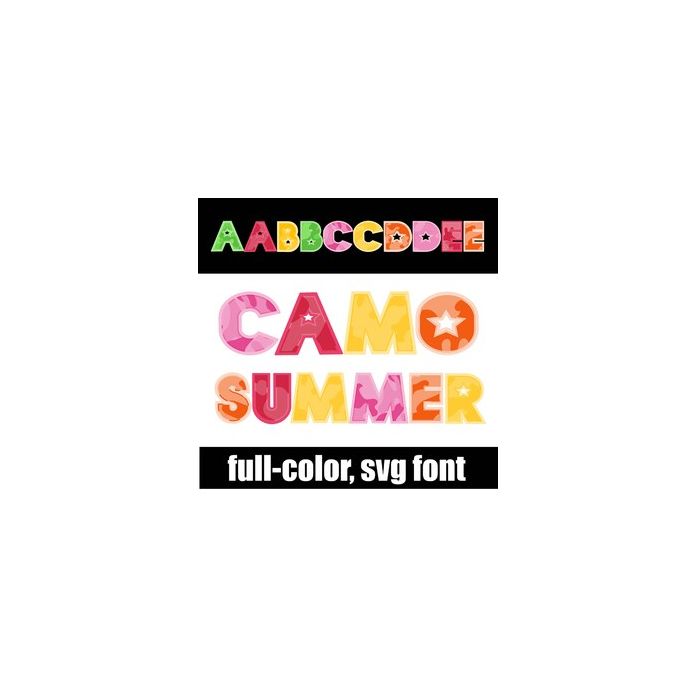
Camo Summer Color Font
This full-color font features fat sans serif lettering in a pastel camo design. There is a second upper and lower alt case you can access through your system's character map. This font works best for titles, displays, posters and more. Please note color fonts will show as black in non compatible programs. This font type is compatible with Silhouette Studio.